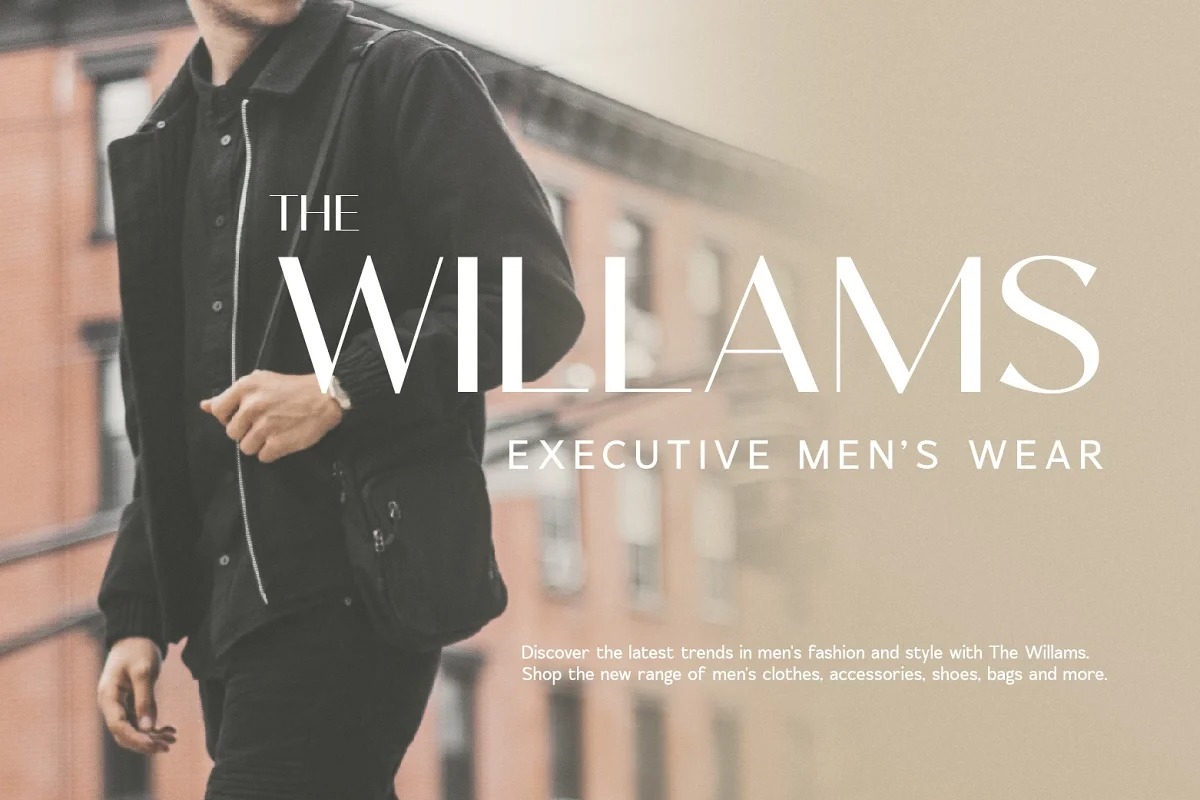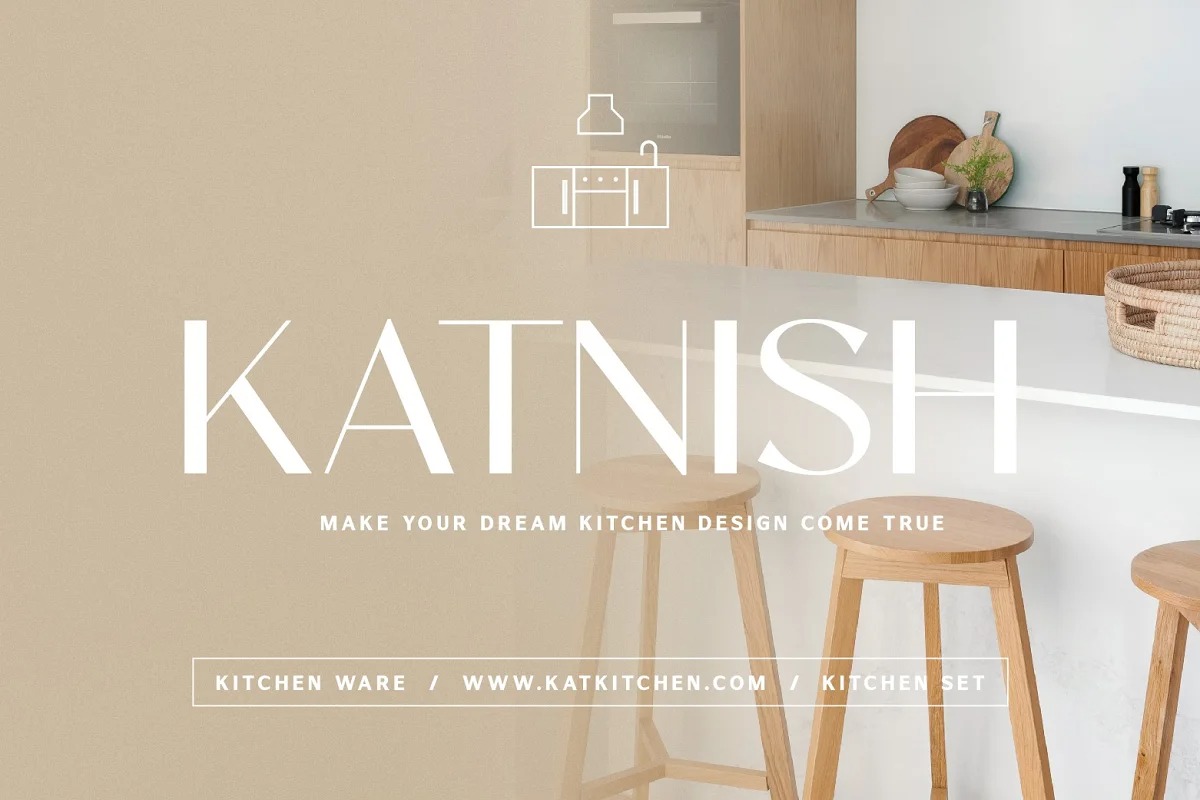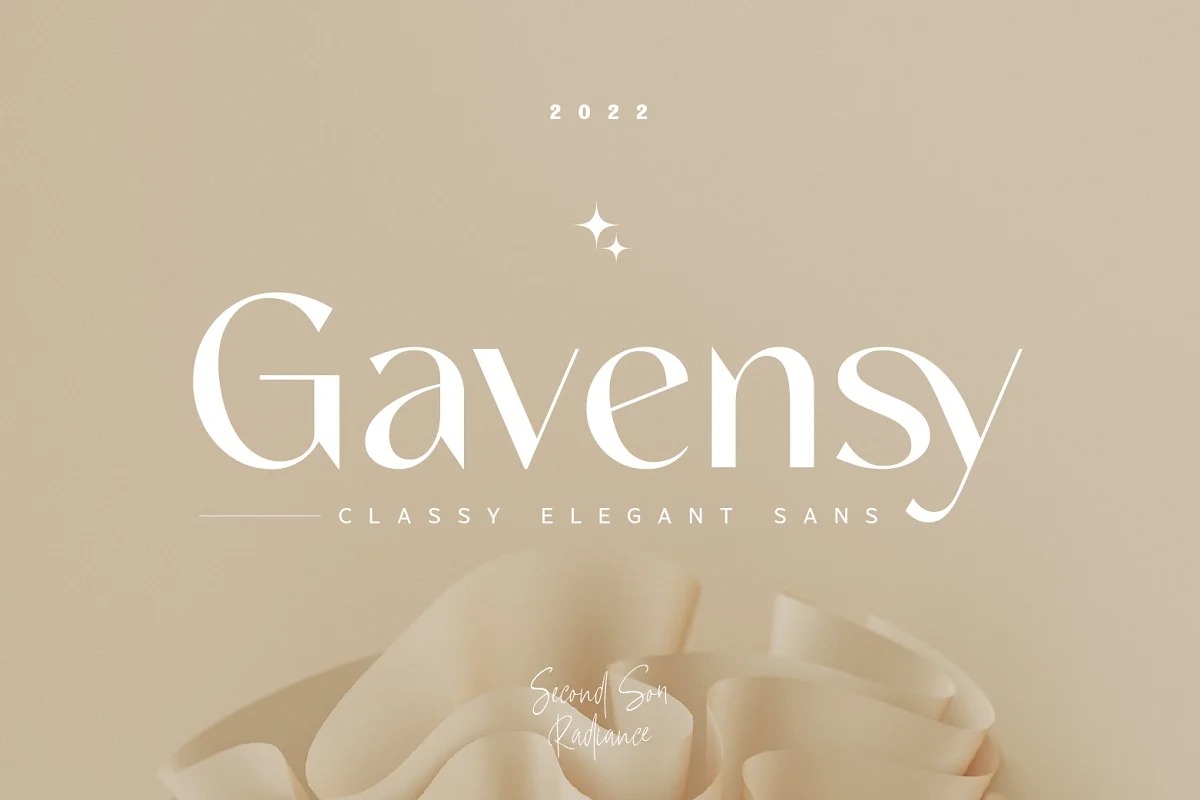
Gavensy Sans Serif Font is a high-contrast, sans serif typeface created by Second Son Radiance with monoline stroke endings and angled stems. Specially designed for luxury, elegant, feminine projects, this font is perfectly suitable for any design needs : logo, branding, modern advertising design, holiday and traveling design, fashion and music, animation or movie title, poster quote, book / fantasy novel cover title, editorial design, website / blog, card, and more.